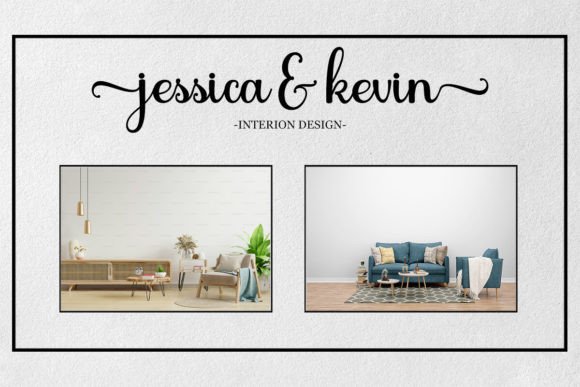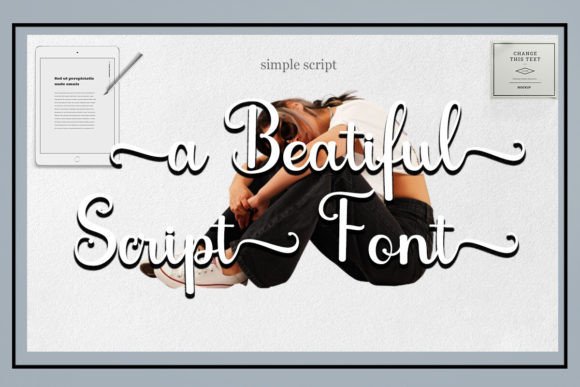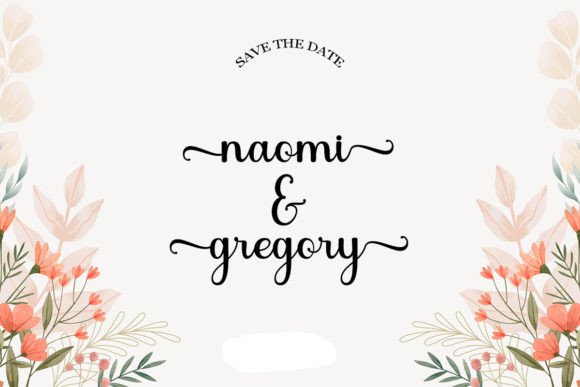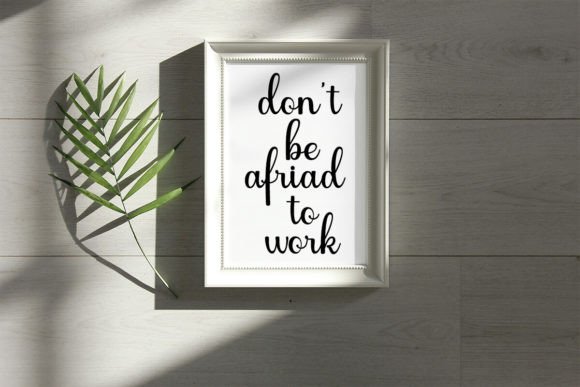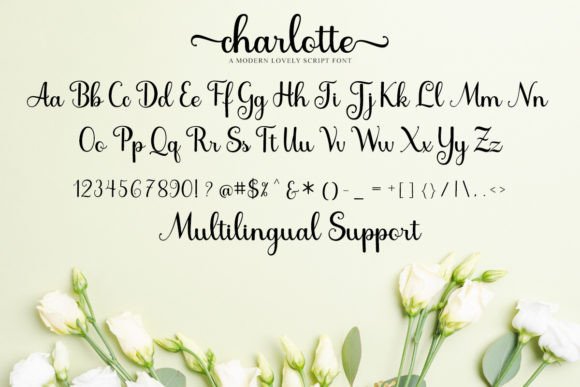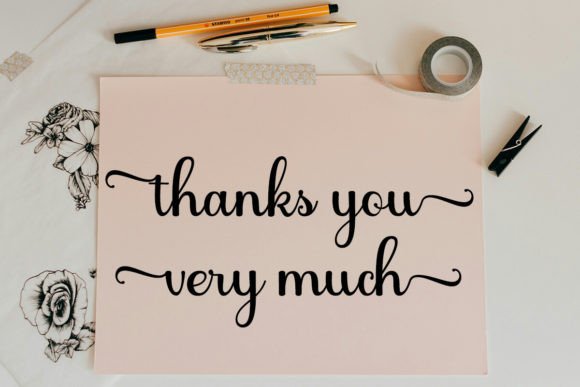
Discover the Timeless Charm of Charlotte Font
You know that moment when you stumble upon a font that perfectly captures the essence of your project? It’s as if the words come alive, and the design just clicks into place. For designers, finding that elusive font can be a game-changer. That’s exactly what the Charlotte Font offers – an elegant and flowing handwritten font that elevates any project to new heights.
Charlotte Font is more than just a beautiful font; it’s a tool that brings a touch of sophistication and class to your work. With its varied baselines, smooth lines, and stunning alternates, this font is sure to captivate your audience. Its calligraphic influence is expertly balanced with a fresh, contemporary feel, making it the perfect choice for designers seeking to create a lasting impression.
Key Features of Charlotte Font
- Unique Characteristics: Charlotte Font features a distinctive, elegant script with a touch of whimsy, making it perfect for creating eye-catching headlines and titles.
- Kerning and Ligatures: Charlotte Font includes advanced kerning and ligature pairs, ensuring that text flows smoothly and reads well, even in complex layouts.
- Font Weight and Style: Charlotte Font comes in a range of weights, from Light to Bold, and includes various styles, such as Regular, Italic, and Bold Italic, providing designers with flexibility and creativity.
Designer Review: Charlotte Font
When I first saw the Charlotte Font, I was immediately drawn to its elegant and sophisticated design. The font features a beautiful blend of modern and classic elements that make it perfect for a wide range of applications.
- ✨ Elegant and refined design that exudes sophistication and class.
- ✨ Beautifully crafted ligatures and swashes that add a touch of whimsy and personality.
- ✨ Highly legible and easy to read, making it perfect for body text and long-form content.
However, as with any font, there are some limitations:
- ⚠️ Limited character set, which may not be suitable for languages that require a wider range of characters.
- ⚠️ Some users may find the font to be too ornate or decorative, which can be a distraction in certain contexts.
- ⚠️ Not ideal for use in small text sizes, as the font’s intricate details can become difficult to read.
Overall, I would say that the Charlotte Font is a beautiful and refined choice for designers looking to add a touch of elegance to their projects. While it may have some limitations, the font’s strengths far outweigh its weaknesses, making it a great addition to any designer’s toolkit.
Getting the Most Out of Charlotte Font
Here are some tips for getting the most out of the Charlotte font:
- Use it for headings and titles to add a touch of elegance.
- Pair it with a bold font for a striking contrast.
- Experiment with different font sizes and styles to achieve a unique look.
The Charlotte font is ideal for:
- Editorial and literary designs.
Alternatives to Charlotte Font for Designers
Playfair Display is an elegant, high-end serif font suitable for luxury brands, high-end fashion, and sophisticated publications. It features intricate details and ornate flourishes, making it ideal for use in headings and titles.
Compared to Charlotte Font, Playfair Display is more ornate and luxurious, while Charlotte Font is more versatile and modern. Playfair Display is best used for high-end designs, while Charlotte Font is suitable for a wide range of applications.
Merriweather is a classic serif font with a traditional feel, suitable for academic, historical, or formal documents. It features a strong x-height and clear letterforms, making it easy to read in large blocks of text.